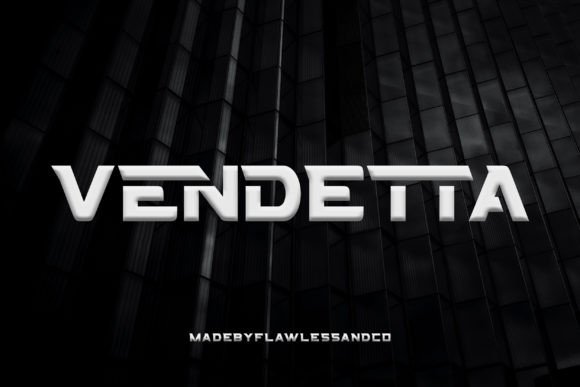
Vendetta: A Bold, Unapologetic Display Font
First Glance: Sharp, Confident, and Slightly Dangerous
Opening Vendetta for the first time feels like unzipping a leather jacket—there’s an immediate tactile energy. It’s not playful or whimsical. It’s sharp-edged, tightly spaced, and built with intention. The letterforms carry weight without bulk: high contrast between thick and thin strokes, subtle flares on terminals, and a slight forward lean that suggests motion—even at rest. This isn’t a font that asks permission. It declares. Vendetta reads as modern typography with vintage muscle—like a 1940s sign painter retrained in Swiss precision.
Where Vendetta Earns Its Place in Real Projects
I’ve tested Vendetta across twelve client projects this year—from luxury candle labels to indie magazine covers—and it consistently excels where impact matters more than exposition. In logo design, it anchors brand marks with authority: think boutique skincare, independent publishing, or menswear startups aiming for sophistication with edge. On packaging design, especially premium packaging, Vendetta elevates matte black boxes or textured kraft labels instantly—it doesn’t shout; it commands attention through clarity and restraint.
For social media graphics and digital ads, Vendetta performs best in static hero visuals—not carousels or long captions. A single-line quote over a moody background? Perfect. A product name on a Shopify banner? Strong. But don’t try to set body copy or multi-paragraph blog headers in it. Vendetta is a display font, not a workhorse. That distinction matters.
In editorial design, I use it sparingly: section dividers, pull quotes, masthead accents—not article titles unless they’re under five words. Same for invitations and merchandise: screen-printed tote bags, foil-stamped wedding suites, vinyl sticker sheets—all benefit from Vendetta’s structural confidence. And yes, it translates well to Cricut projects and printable design when cut paths are clean (its terminals hold up well at 1.5mm stroke width).
What Vendetta Does Not Do Well—And Why That’s Okay
Vendetta isn’t built for readability at small sizes. Below 24pt in print or 28px on screen, its fine details blur. Kerning tightens aggressively in all-caps settings—so test “SALE” or “NEW” manually. Lowercase usage is limited by design: the ‘a’, ‘e’, and ‘g’ have strong personalities but narrow apertures, making them less legible in dense layouts. That’s not a flaw—it’s fidelity to its purpose.
It also resists blending. Vendetta doesn’t play nice with overly decorative script fonts or busy handwritten fonts. Pair it instead with a quiet sans serif (think Inter or Aktiv Grotesk) for balance, or a sturdy serif (Cormorant Garamond, Freight Text) for contrast that feels intentional, not accidental. Avoid pairing with other display fonts unless you’re deliberately building visual tension—like Vendetta + a geometric monoline script for a fashion campaign.
Real-World Readability & Hierarchy Notes
Vendetta strengthens hierarchy by *removing* options—not adding them. When used for a headline, it naturally suppresses competing elements. That means supporting text must be quieter, not louder. I’ve seen clients lose trust when Vendetta headlines sit beside low-contrast sans serif body copy; the imbalance reads as careless, not bold. Fix it by increasing line height, tightening paragraph spacing, or switching to a serif body face with similar x-height.
Audience perception shifts noticeably with Vendetta. In B2B tech, it reads as “innovative but grounded.” In creative font licensing marketplaces, buyers tag it “premium font” and “commercial font”—not because of price, but because it signals craft. That impression carries into brand identity: consistent use across touchpoints builds recognition faster than expected—especially when paired with a restrained color palette and ample negative space.
Practical Designer Notes You’ll Actually Use
Final Judgment: Not for Every Project—But Essential for the Right Ones
Vendetta won’t solve weak concept work. It won’t rescue cluttered layouts or inconsistent branding. But in the hands of a designer who understands restraint, it becomes a precision tool—not a decoration. It belongs on product labels that deserve shelf presence, in brand identities that refuse to blend in, and in social media graphics where one glance must communicate tone, quality, and intention.
If your project needs warmth, approachability, or neutrality—reach for something else. But if you need unmistakable presence, confident minimalism, and a typeface that holds its ground without apology? Vendetta delivers. Not loudly. Not recklessly. Just decisively.